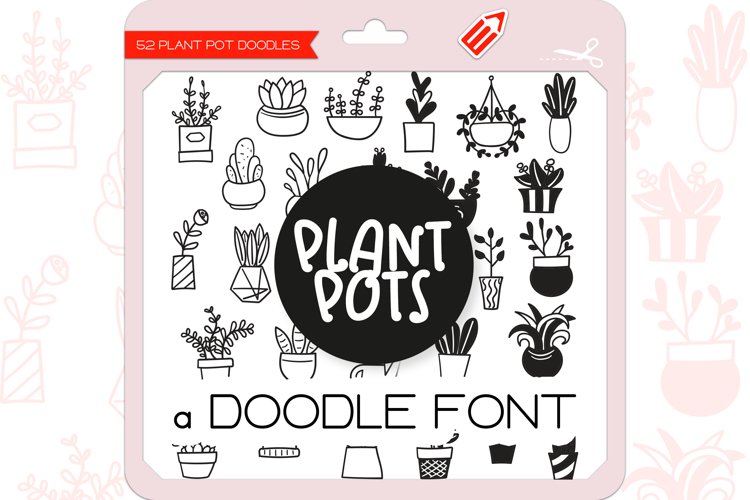
Plant Pots is a unique and cute dingbats font. Add this font to your creative ideas and make your arts outstanding!
Plant Pot dingbats font containing 52 hand-drawn doodles.